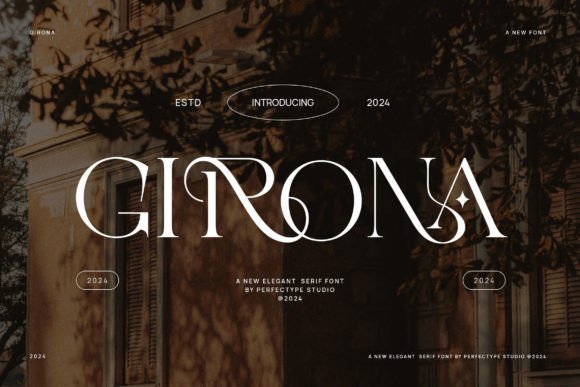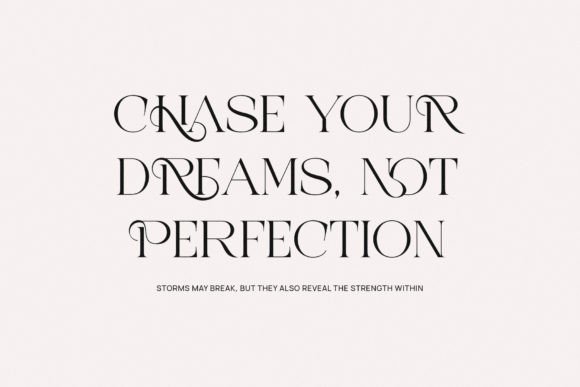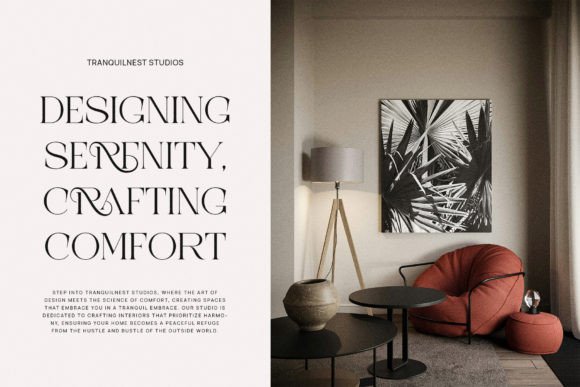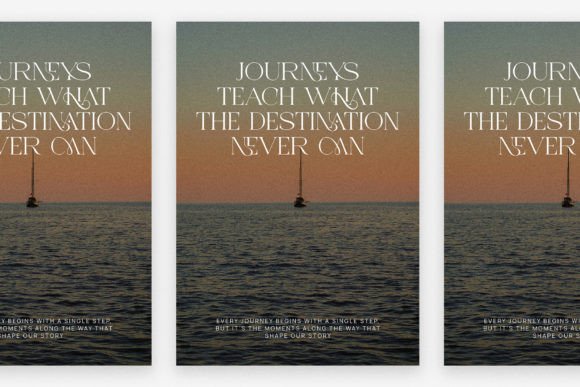
Girona Font: Elegant Serif Typography for Modern Branding & Logos
About the Girona Font
Meet Girona Font, a stunning font that brings a touch of elegance and professionalism to any design. Girona is a classy serif typeface with a touch of elegance. It’s perfect for adding a sophisticated vibe to your designs. With its simple yet refined style, Girona stands out beautifully in any project, from invitations to branding.
Girona’s elegant serif forms excel in display applications such as headlines, logos, and short-form text on invitations or packaging. Its refined aesthetic lends itself well to branding projects requiring a touch of sophistication, particularly for luxury goods or high-end services. However, its delicate stroke weight isn’t ideal for lengthy body text or user interface elements where readability at smaller sizes is crucial.
Pairing Girona effectively depends on the desired mood. For a classic feel, consider pairing it with a clean sans-serif like Lato or Open Sans. A more modern aesthetic could be achieved by combining it with a geometric sans-serif such as Futura or a minimalist typeface like Montserrat. To add a touch of playfulness, a carefully chosen script font could complement its elegance.
Girona projects an overall personality of sophisticated elegance with a hint of classicism. It’s best suited for brands and projects aiming for a timeless and refined visual identity. Avoid using it where strong readability and versatility across diverse contexts are paramount.
Girona Font Usage Examples